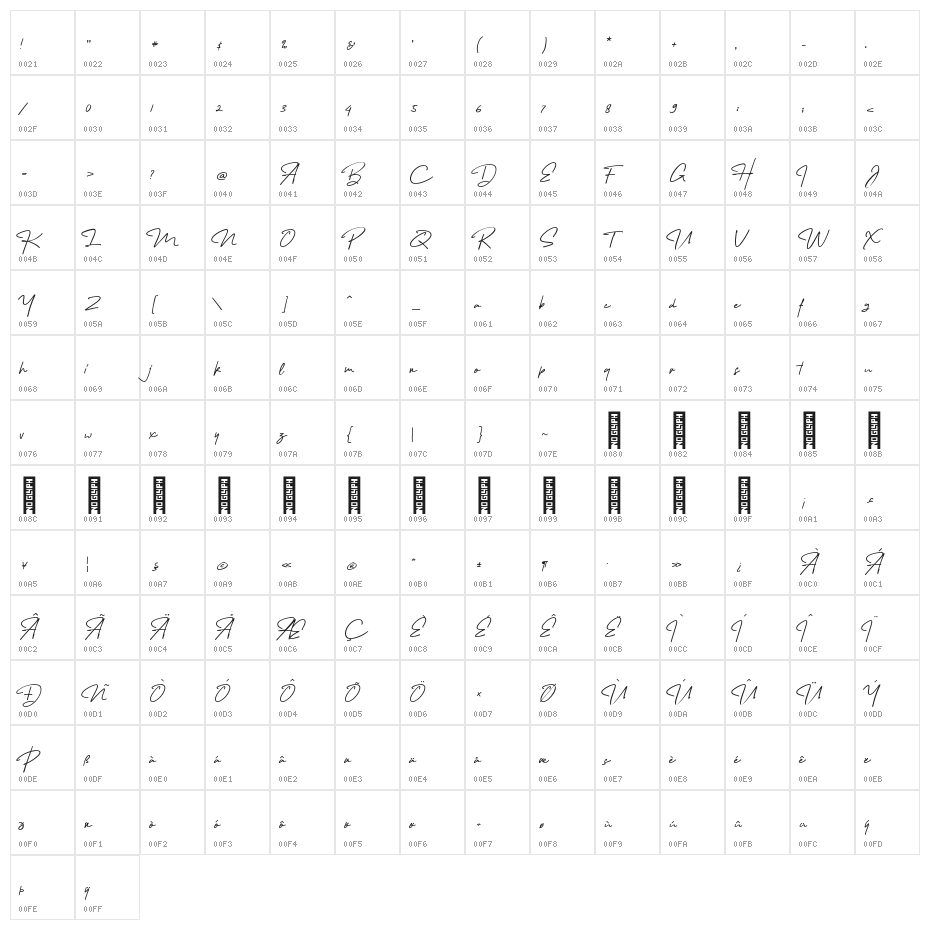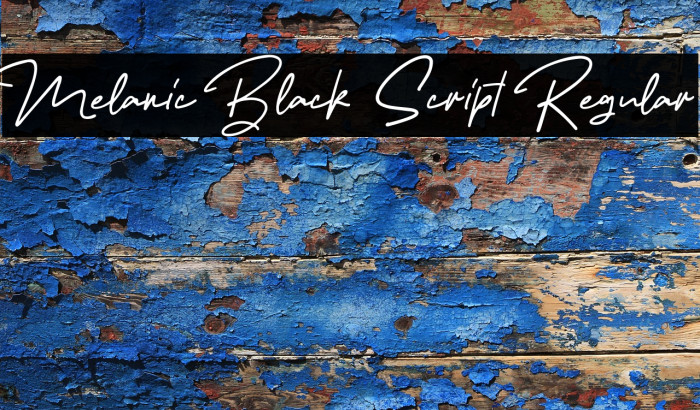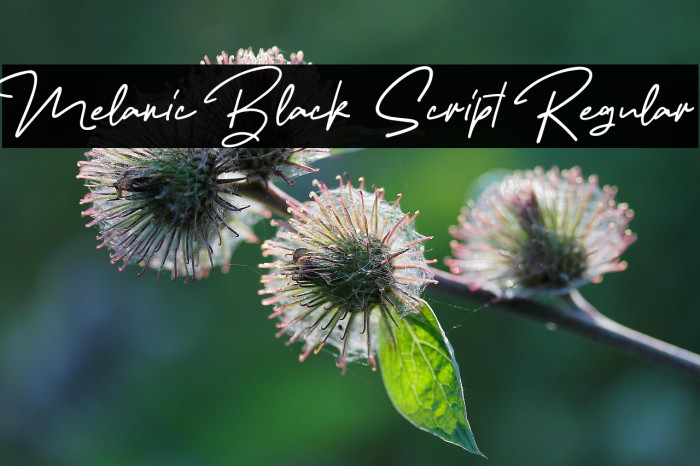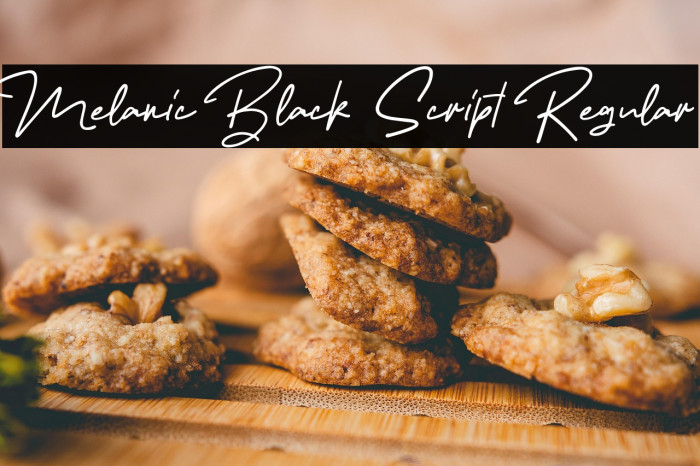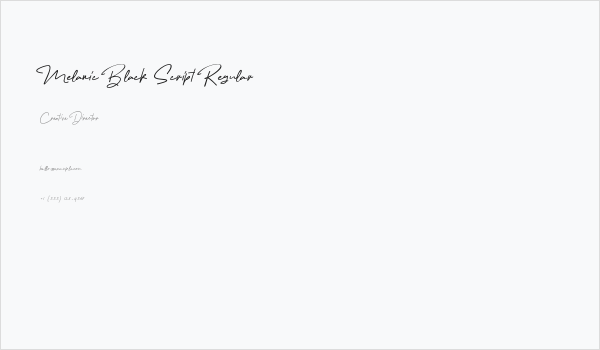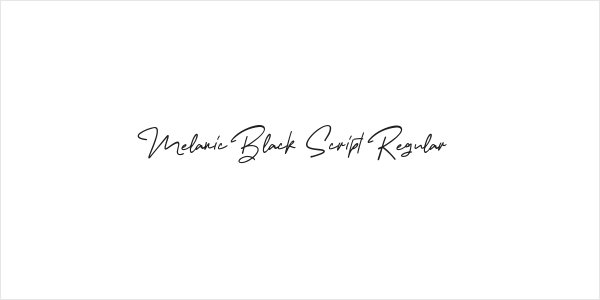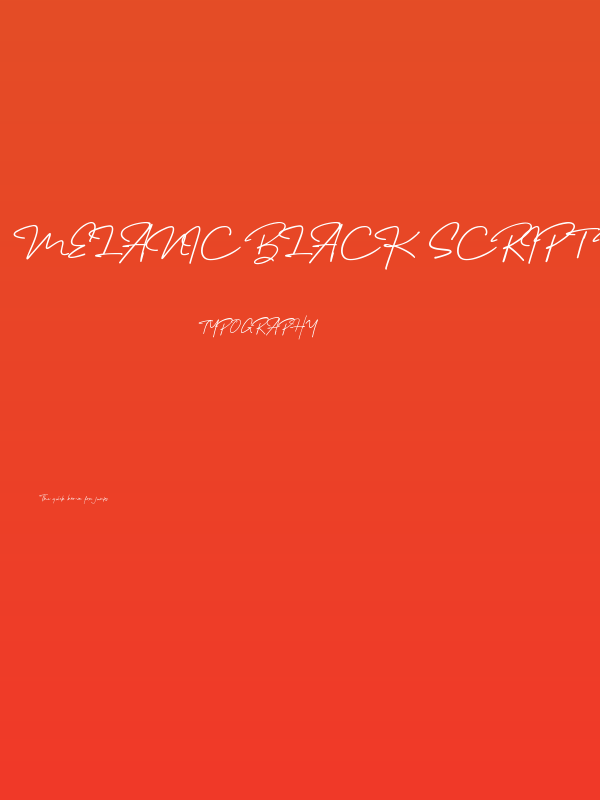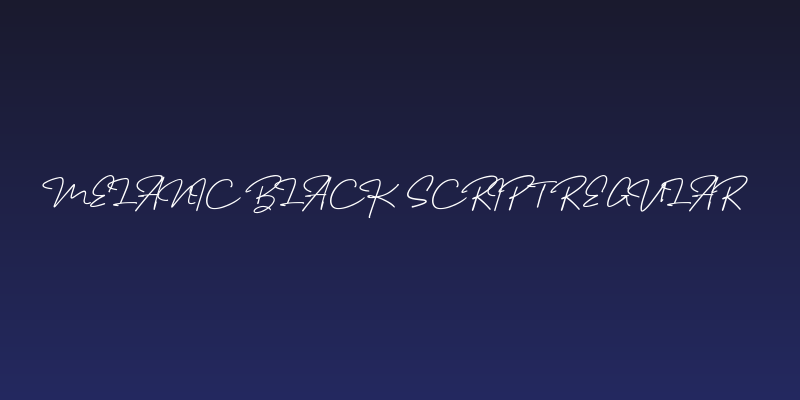
Melanic Black Script Regular Font
Melanic Black Script Regular Description
This font features a dynamic and fluid script style, characterized by its elegant and flowing letterforms. The strokes are smooth and connected, giving it a handwritten appearance that is both sophisticated and approachable. The uppercase letters are bold and prominent, while the lowercase letters maintain a consistent flow, enhancing readability. The numerals and special characters are designed to complement the overall style, maintaining the same fluidity and elegance. This font is perfect for projects that require a personal touch, such as invitations, greeting cards, or branding materials.
| Overall Style | Elegant, Handwritten |
| Proposed Projects | Ideal for wedding invitations, personal branding, greeting cards, and elegant packaging designs. |